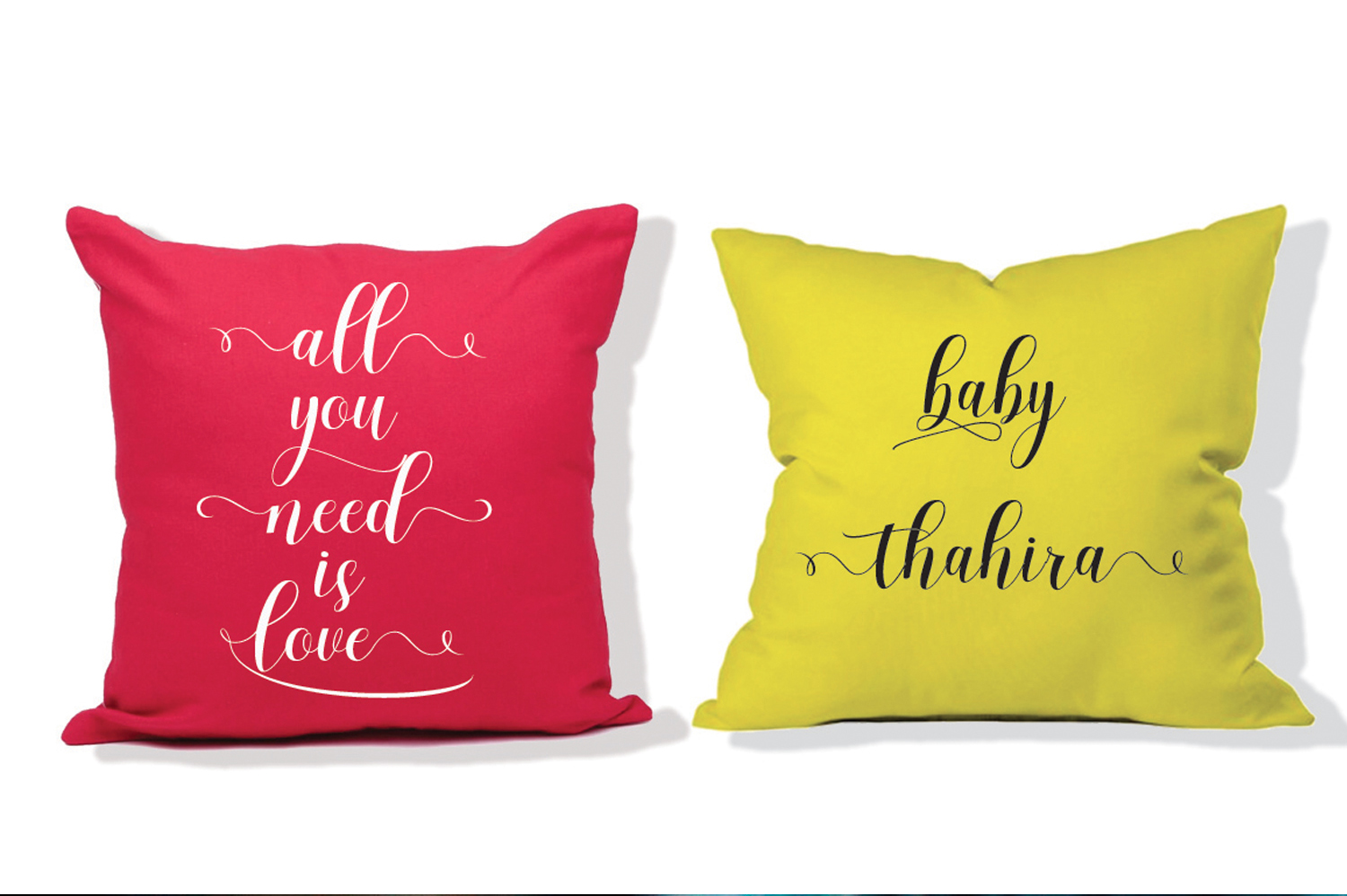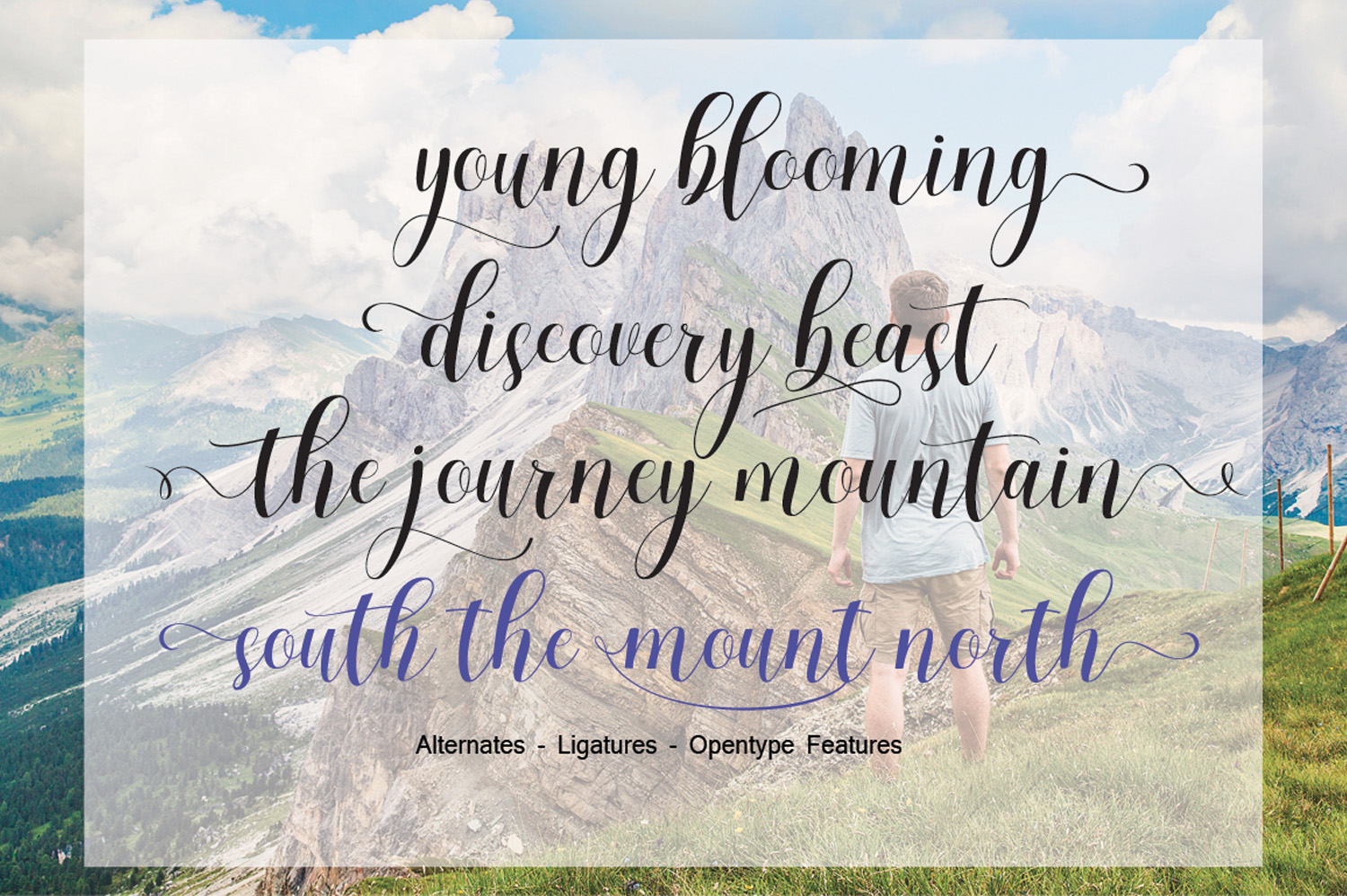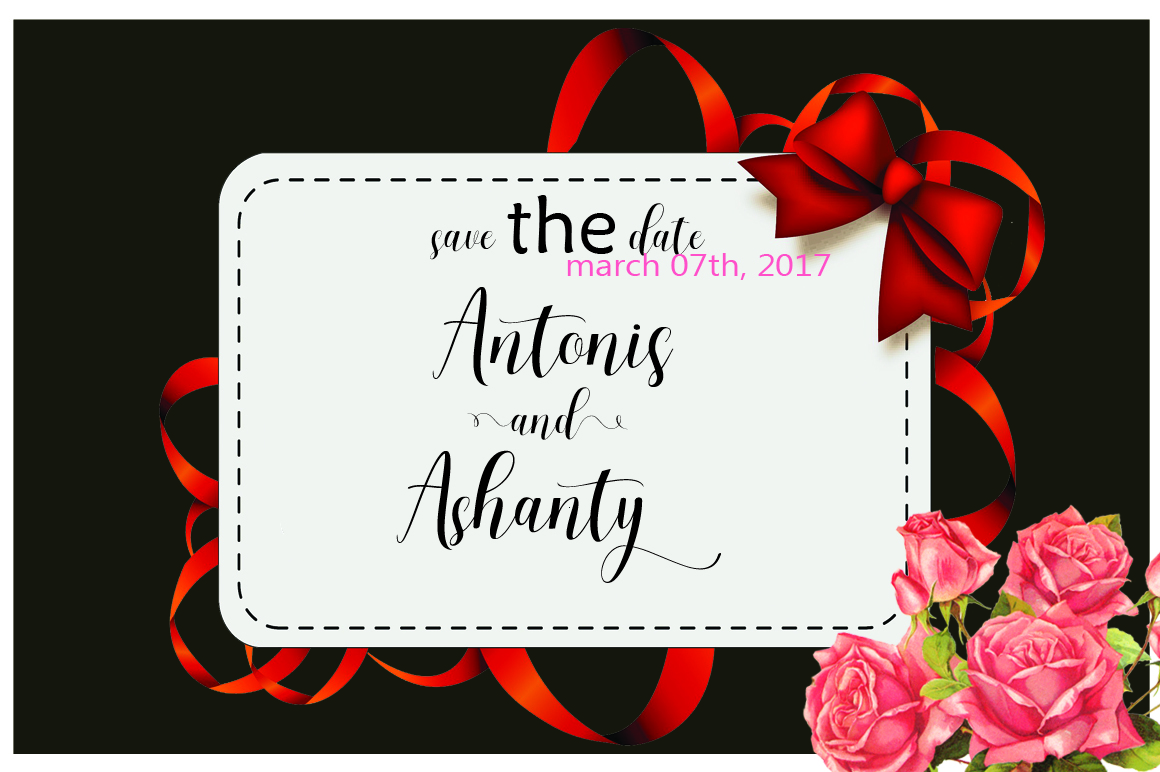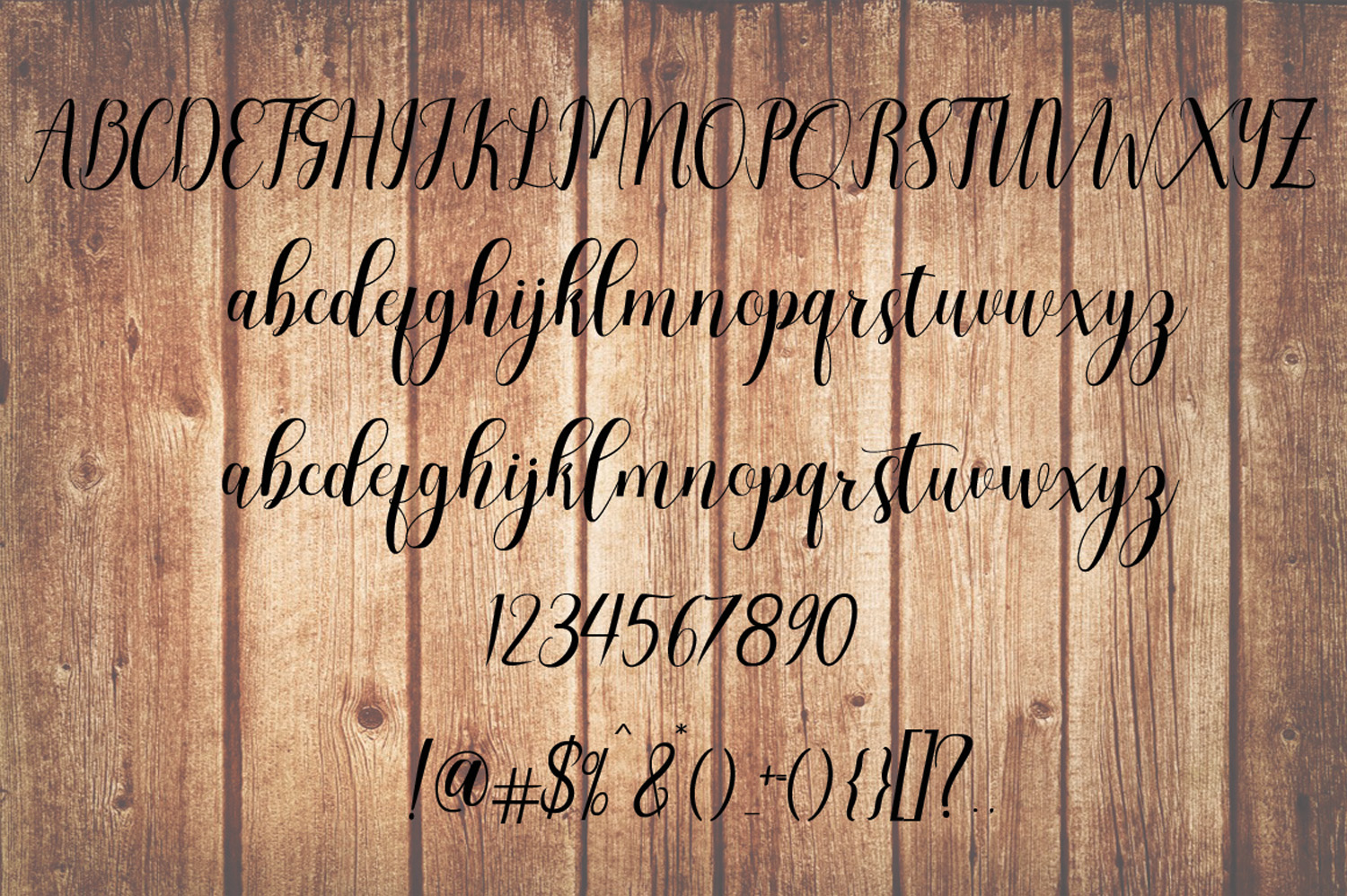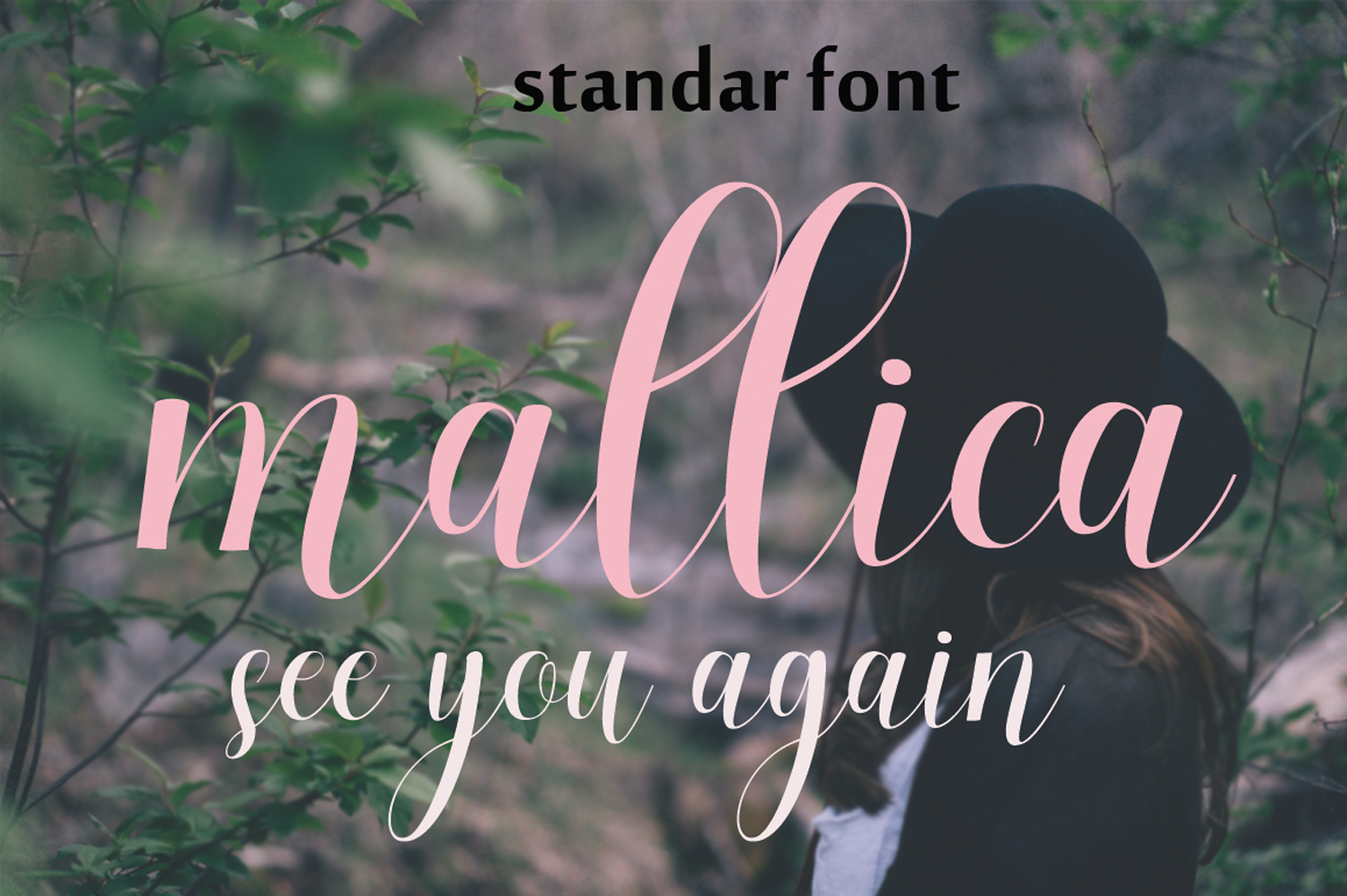
Mallica Font
About Mallica Font
Mallica is a handwritten calligraphic-style font with a natural flow. It comes packed with 273 glyphs and includes some stunning swashes.